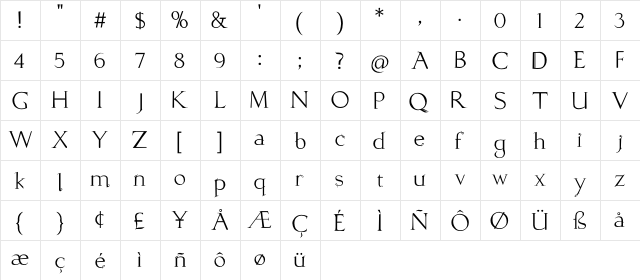
Kurosawa Bastard Bastard
Design Context for Kurosawa Bastard Typeface
Kurosawa Bastard is a composed and adaptable typeface that performs quietly and consistently across a wide range of design contexts.
Pro Tip: Use Kurosawa Bastard in both headline and body roles to test its range before committing to a single application.